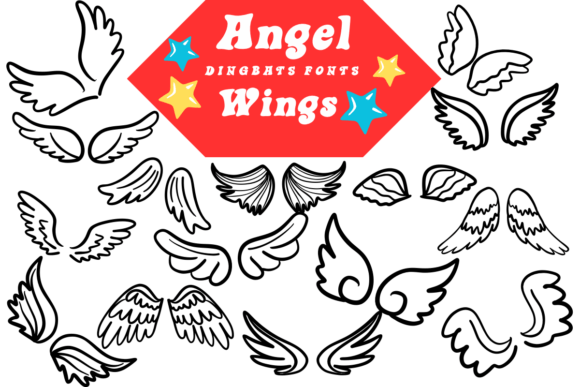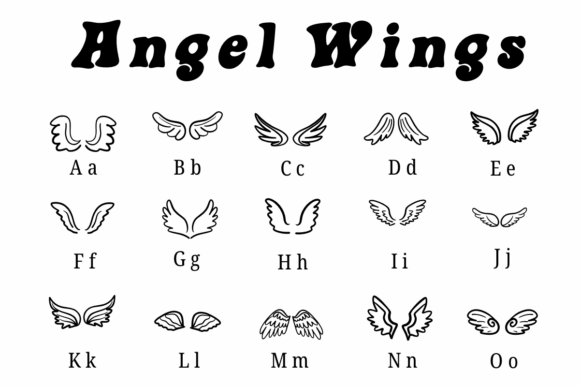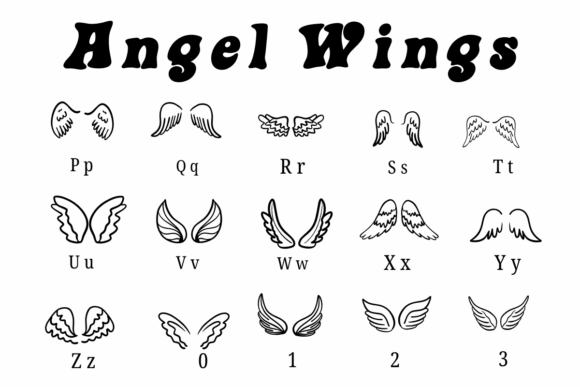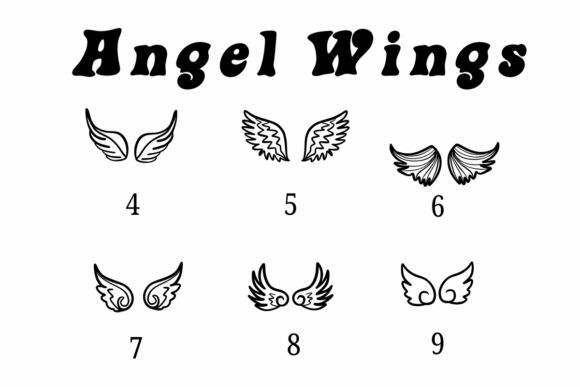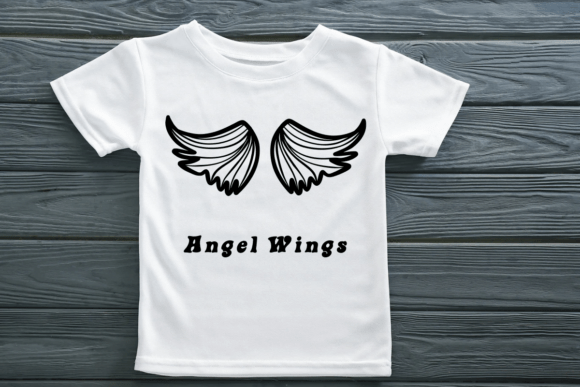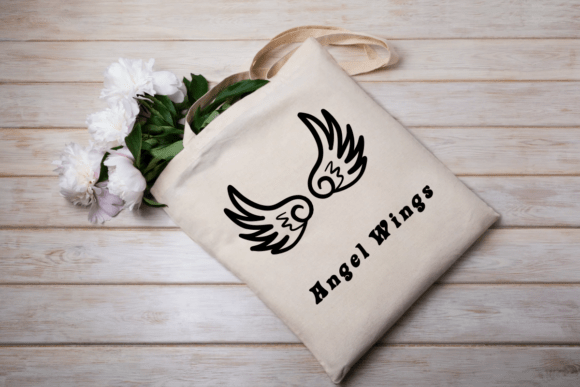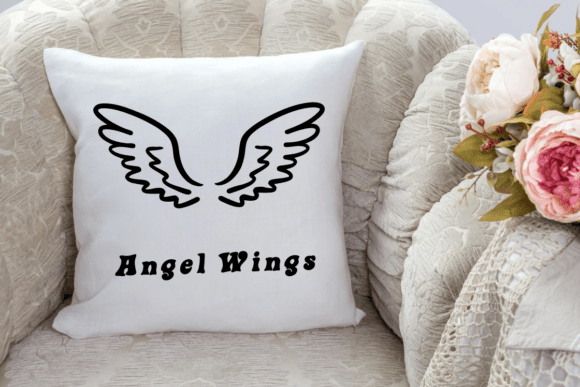
The Creative Spark that is Angel Wings Font
Have you ever sat at your desk, staring blankly at a blank page, waiting for that elusive spark of creativity to strike? It’s a moment we’ve all experienced, and it’s exactly what happened when I first laid eyes on the Angel Wings Font.
This enchanting dingbats font is more than just a collection of decorative symbols – it’s a gateway to a world of creative possibilities. Designed to add an extra layer of whimsy and charm to your designs, the Angel Wings Font is a valuable tool for any designer looking to take their work to the next level. Whether you’re crafting a birthday card, a wedding invitation, or a marketing campaign, this font is sure to bring a touch of magic to your projects.
Angel Wings Font Key Features
- Font Style: A whimsical, handwritten font with elegant and delicate strokes, perfect for adding a touch of sophistication to any design.
- Unique Characteristics: The Angel Wings Font features intricate details, such as subtle flourishes and ornaments, which add a unique touch to any design.
Designer Review: Angel Wings Font
When I first saw the Angel Wings Font, I was immediately drawn to its whimsical and dreamy feel. ✨ The delicate, feathery texture of the font is reminiscent of, well, angel wings, and it’s perfect for creating a sense of ethereal wonder in any design project.
- ✨ Unique and distinctive texture that adds visual interest to designs
- ✨ Great for creating a sense of whimsy and fantasy
- ✨ Can be used for a variety of design projects, from branding to editorial content
- ⚠️ May not be suitable for projects that require a more serious or professional tone
- ⚠️ Can be difficult to read at smaller font sizes
- ⚠️ May not be compatible with all font sizes or styles
Overall, I think the Angel Wings Font is a great choice for designers who want to add a touch of magic to their projects. With its unique texture and whimsical feel, it’s perfect for creating designs that are truly one-of-a-kind. Just be sure to use it judiciously and consider the limitations I mentioned above.
Use the Angel Wings font to add a touch of elegance and whimsy to your designs. Experiment with different font sizes, colors, and styles to create a unique look. You can also use the font in combination with other design elements, such as images and shapes, to create a visually appealing design.
The Angel Wings font is commonly used in wedding invitations, baby shower invitations, and other special occasion designs. It’s also used in creative and artistic designs, such as illustrations and graphics.